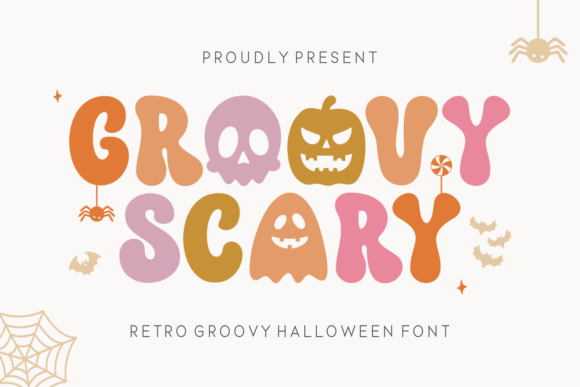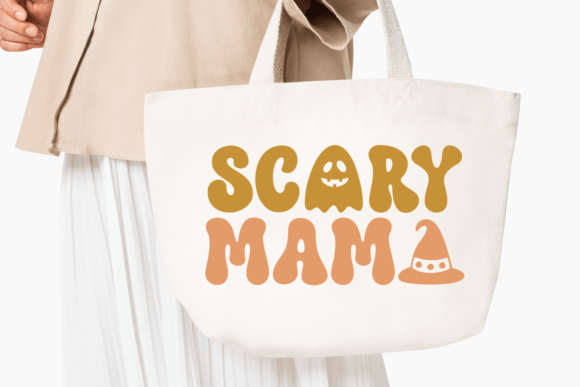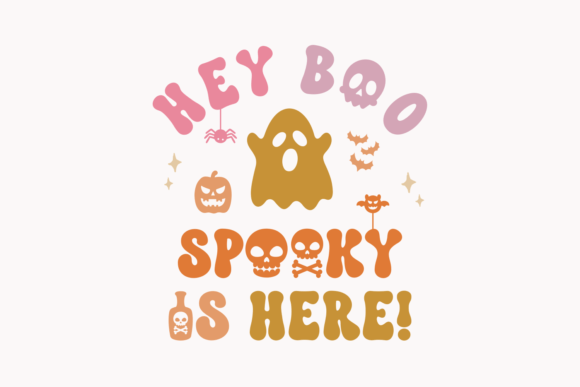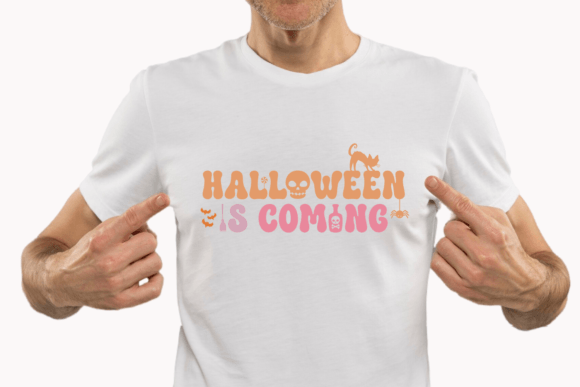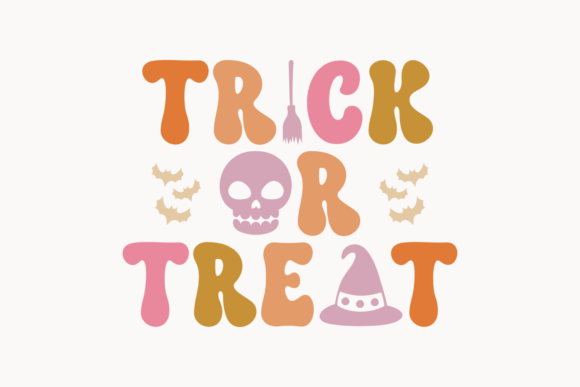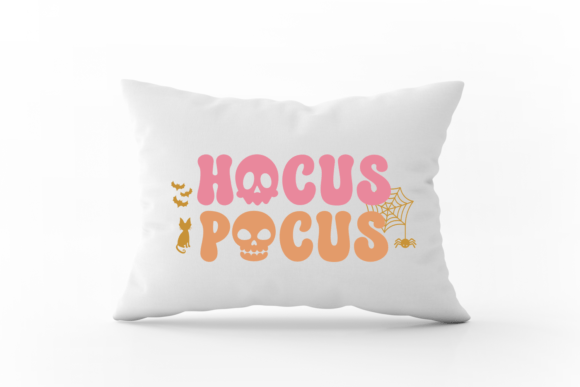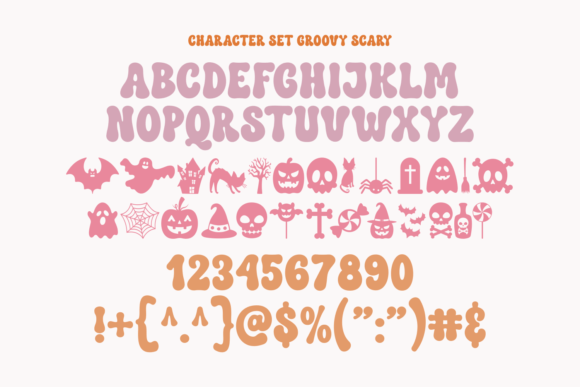
Get Ready for a Spooky Creative Adventure
Have you ever stumbled upon an old, mysterious box in the attic of your childhood home, only to discover a treasure trove of spooky trinkets and decorations? That’s exactly the kind of creative spark that the Groovy Scary Font is designed to evoke. This enchanting retro display font is perfect for adding a touch of whimsy and eeriness to your Halloween projects.
As a designer, you’re always on the lookout for the perfect font to bring your ideas to life. And with the Groovy Scary Font, you’ve got a versatile partner that’s sure to cast a spell on your creations. From greeting cards to book covers, this font is the perfect way to add a touch of retro spookiness to your designs.
Groovy Scary Font Key Features
- Unique Characteristics: Features a spooky, hand-drawn design with intricate details, perfect for Halloween-themed projects.
- Font Style: Offers a bold, sans-serif font style, ideal for creating a dramatic and eerie atmosphere.
Designer Review: Groovy Scary Font
I recently had the chance to play around with the Groovy Scary Font, and I’m excited to share my honest review.
- Unique aesthetic: The font has a quirky, retro vibe that’s perfect for adding a touch of whimsy to your design.
- Highly customizable: The font’s irregular shape and bold lines make it easy to customize and manipulate in design software.
- Perfect for Halloween-themed designs: As the name suggests, the font is a great choice for spooky-themed projects, like haunted house invitations or monster-themed graphics.
- May be too playful for serious designs: While the font’s quirky aesthetic is great for fun projects, it may not be suitable for more formal or professional designs.
- Can be difficult to read in small sizes: The font’s bold lines and irregular shape can make it tricky to read when used in smaller font sizes.
The Groovy Scary Font is a great addition to any designer’s toolkit, especially for Halloween-themed projects or anything that needs a touch of whimsy. While it may not be suitable for every design, its unique aesthetic and high customizability make it a great choice for designers looking to add some personality to their work.
Practical Application Guide for “Groovy Scary Font”
The “Groovy Scary Font” is perfect for creating spooky and playful designs. Some common use cases include:
- Halloween-themed graphics and posters.
- Spooky website headers and titles.
- Playful social media posts and captions.
Remember to experiment with different font sizes and styles to get the most out of the “Groovy Scary Font”!